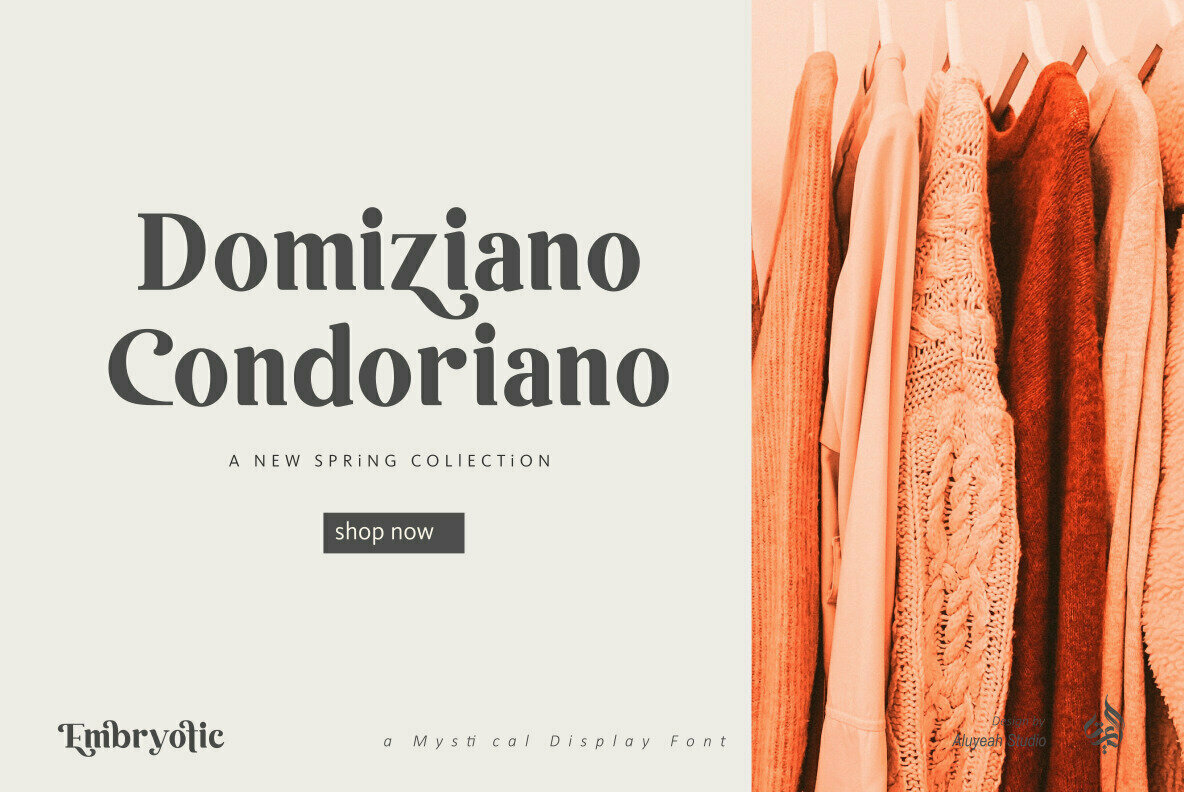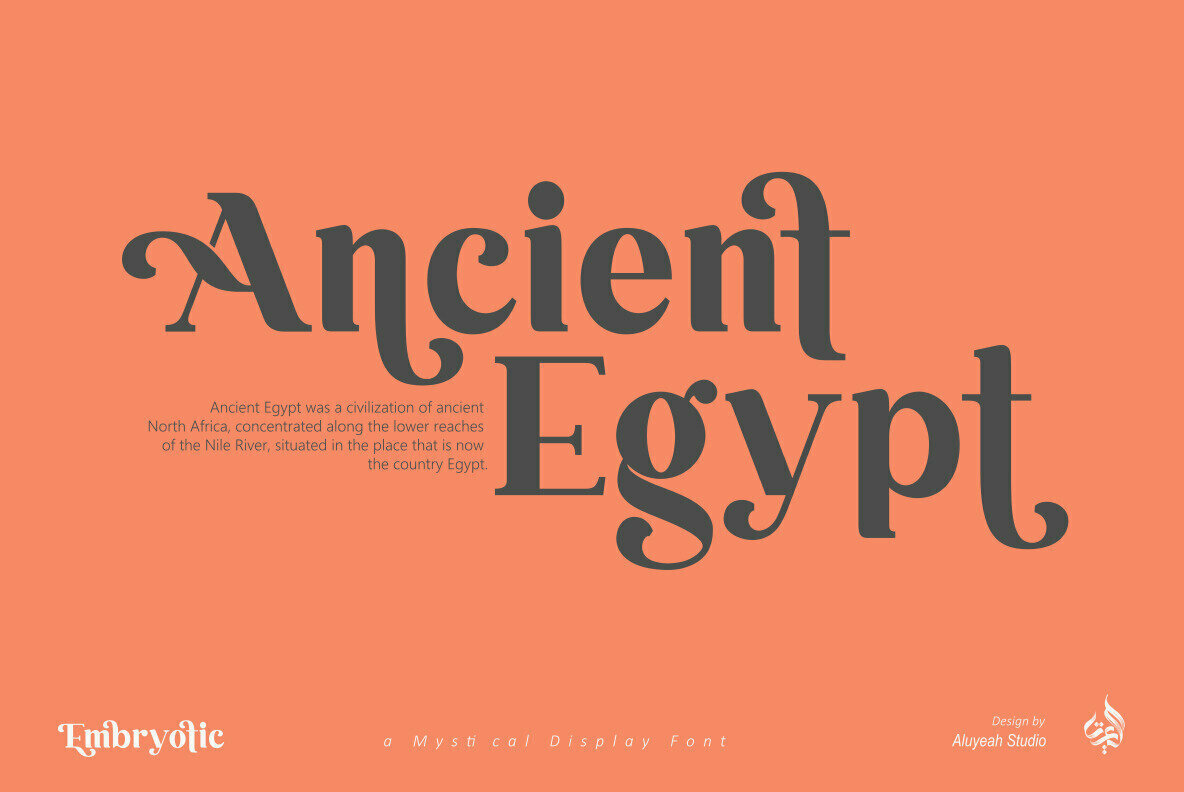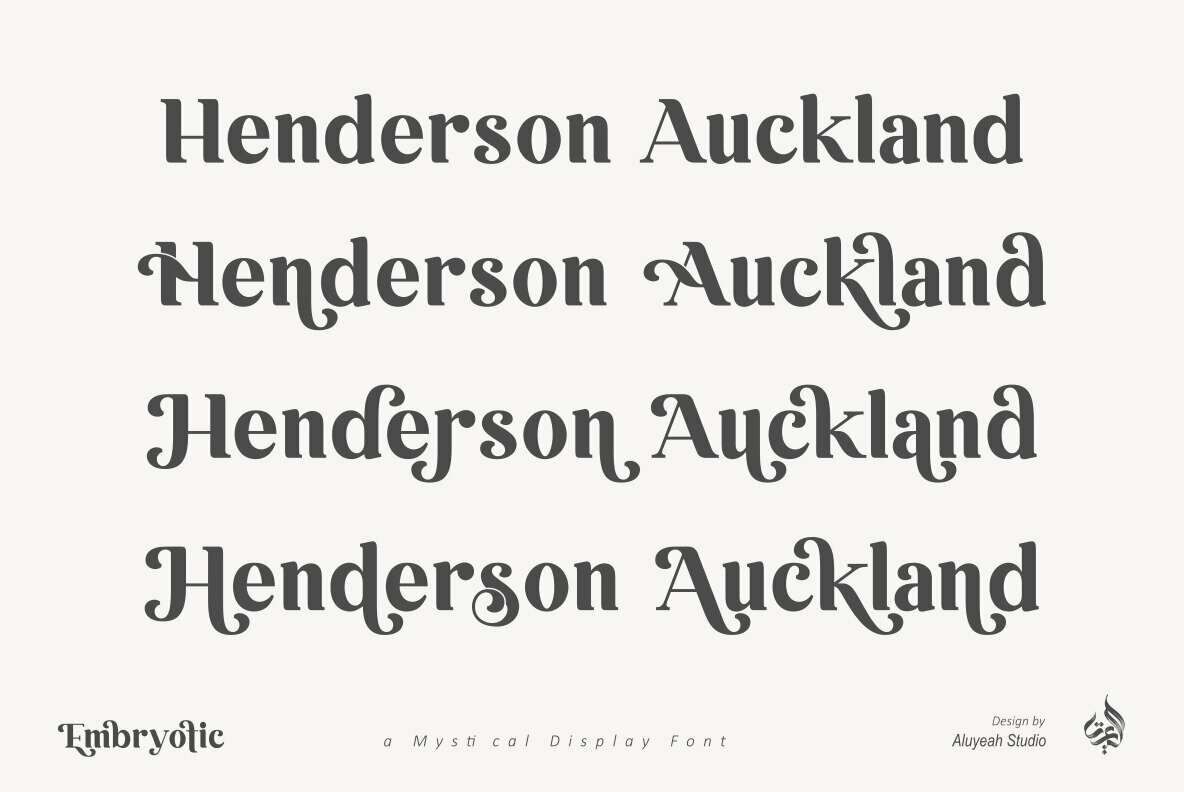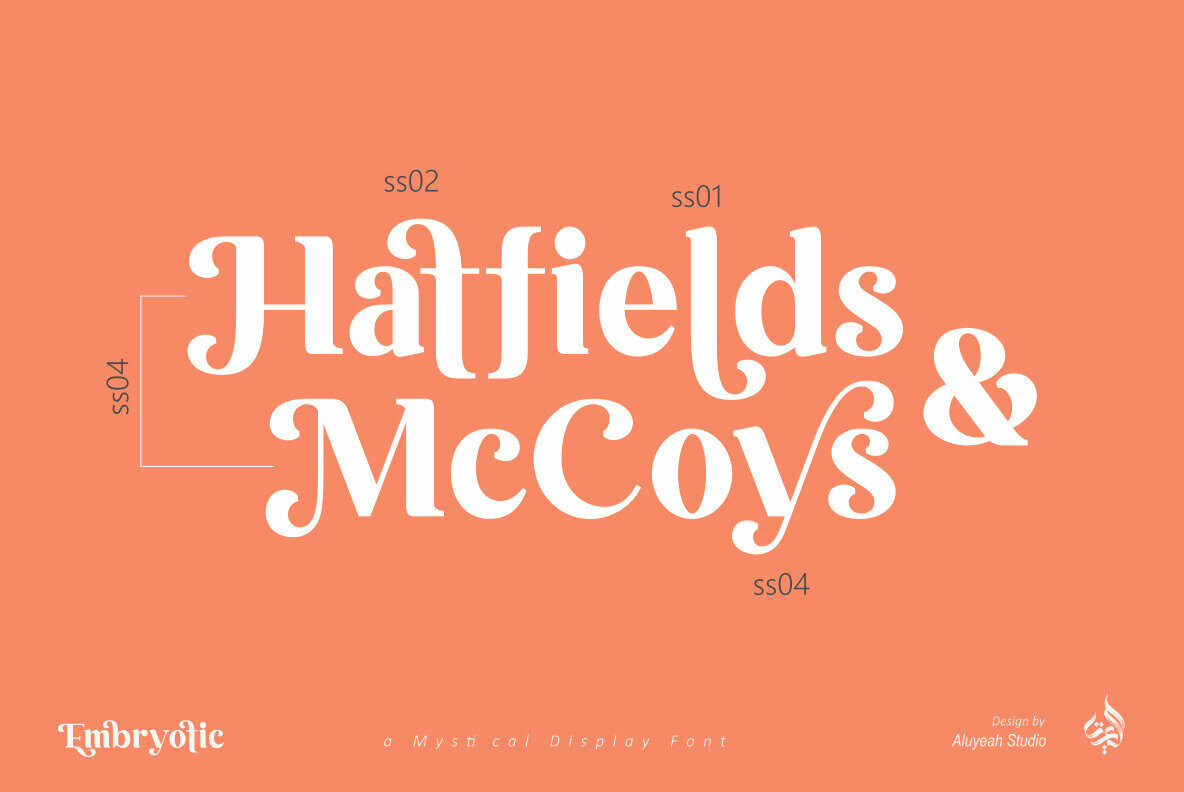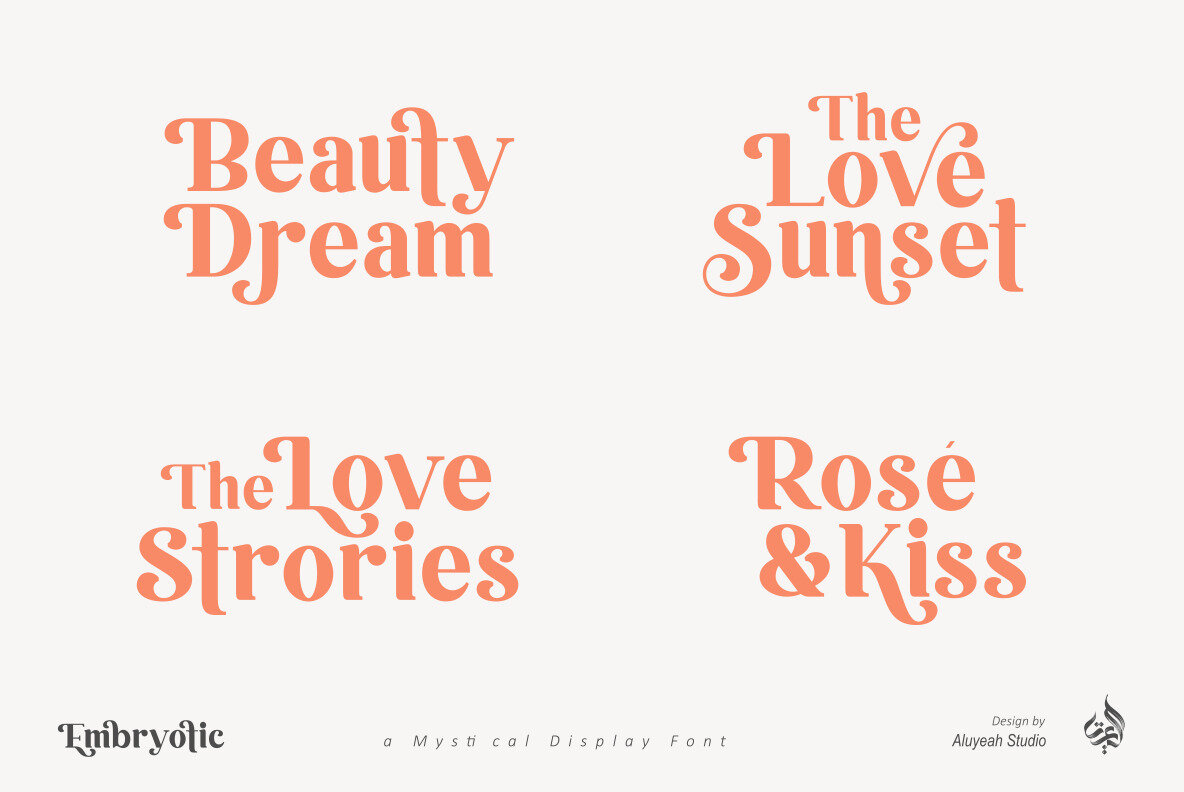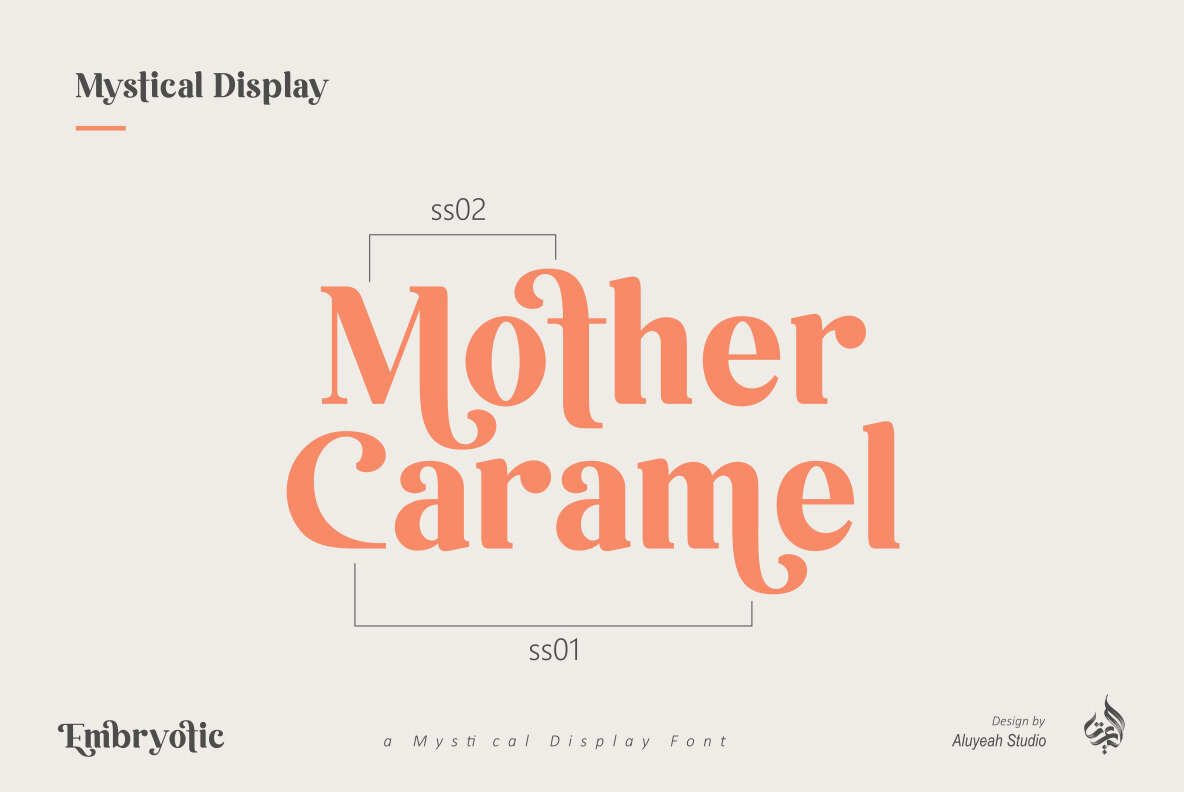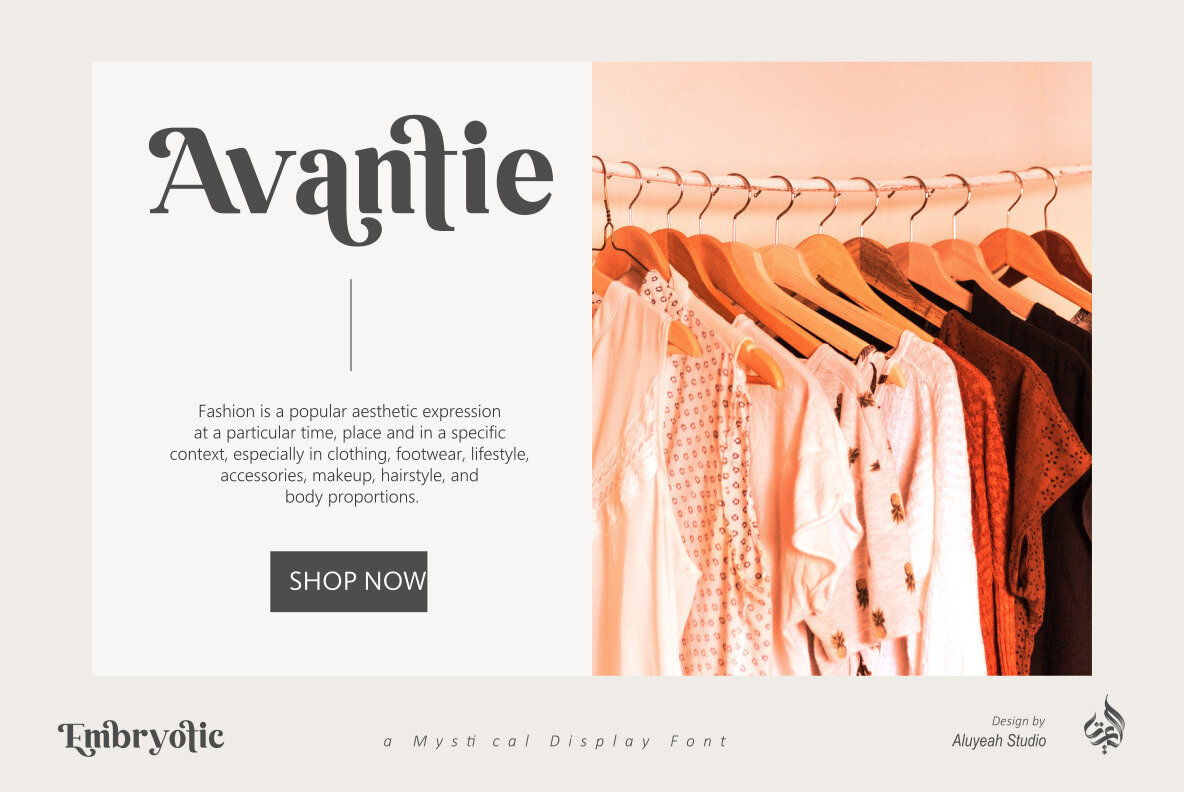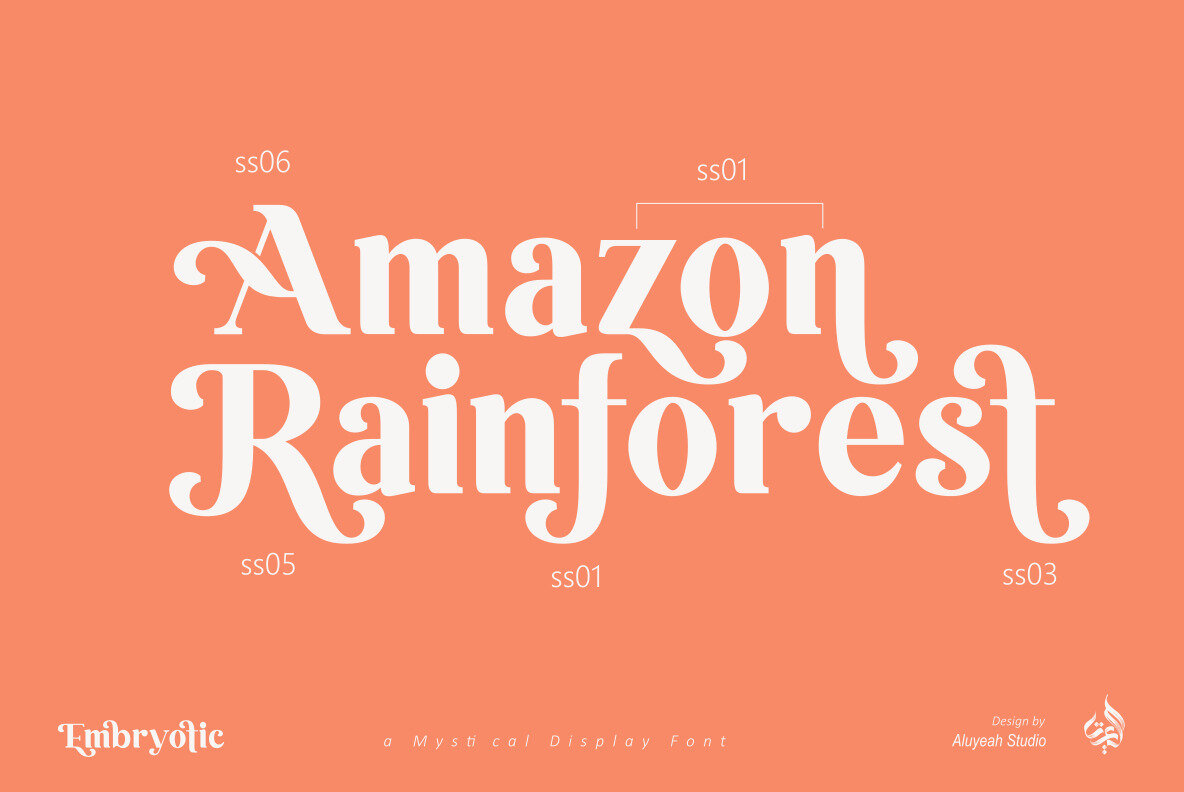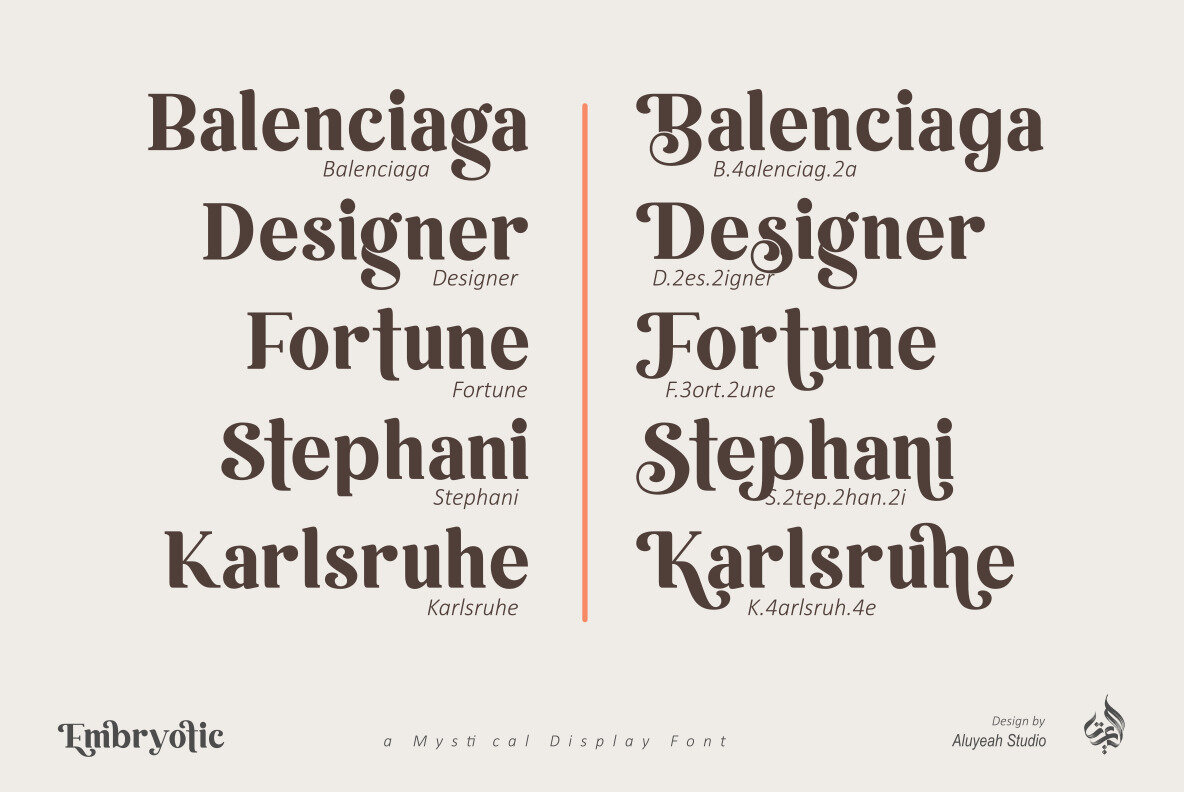
Embryotic Font
The Embryotic font, an intriguing creation by Aluyeah Studio, is imbued with a sense of luxury and elegance, ideal for high-end design projects. Drawing inspiration from premier fashion brands worldwide, it offers an opulent touch to any visual composition, whether in print or digital form. With over 90 alternates, Embryotic allows you to infuse your designs with a distinctive blend of mysticism and sophistication. Perfect for use across a variety of projects, it's especially suited to fashion brands, upscale cosmetics, and refined invitations. Additionally, it excels in settings such as branding, boutique packaging, social media headers, restaurant menus, and chic wedding stationery.Embryotic: Mystical Luxury in Display Typography
Embryotic offers a seamless blend of creativity and functionality, elevating your design's elegance with its sophisticated features. Perfect for designers seeking to infuse their work with a subtle yet impactful touch of luxury.